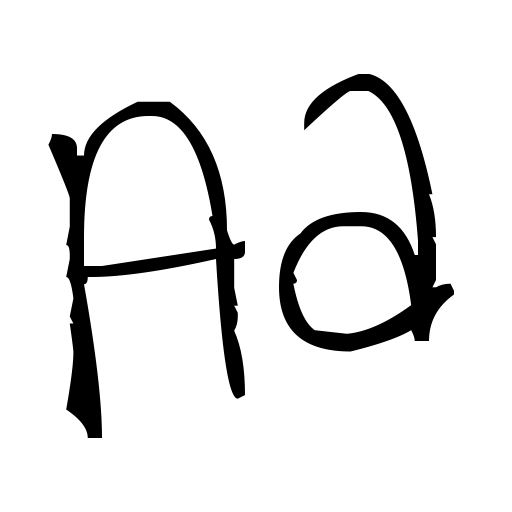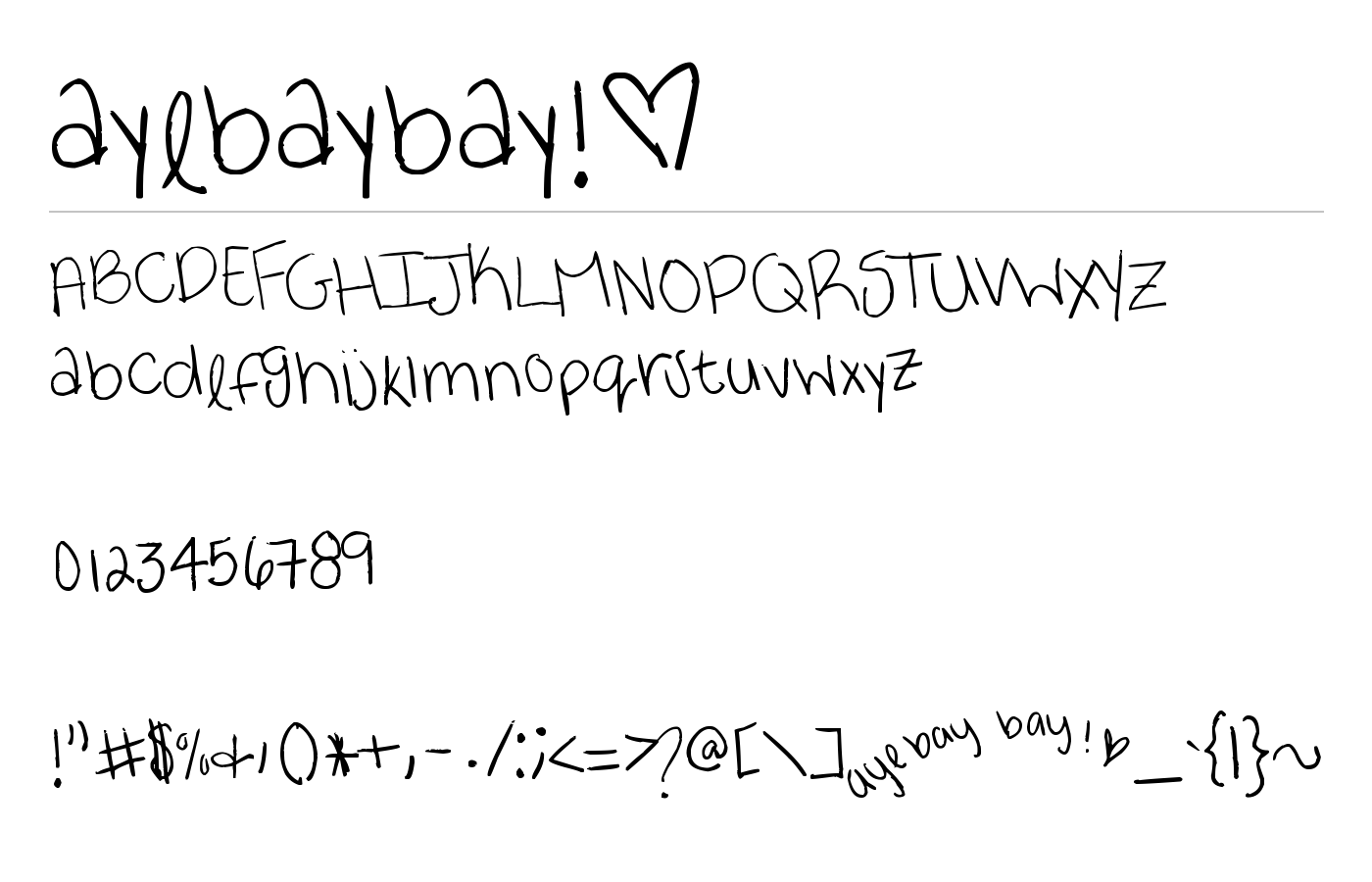
Ayebaybay!® is a playful and casual handwritten font with an irregular, sketch-like style that feels personal and whimsical. Its tall, narrow letterforms with varying stroke widths and quirky character shapes give it an energetic, informal vibe perfect for creative projects and youthful branding. This font works well for invitations, greeting cards, posters, and any design seeking a fun, approachable, and unique handmade touch.
ayebaybay!® Font